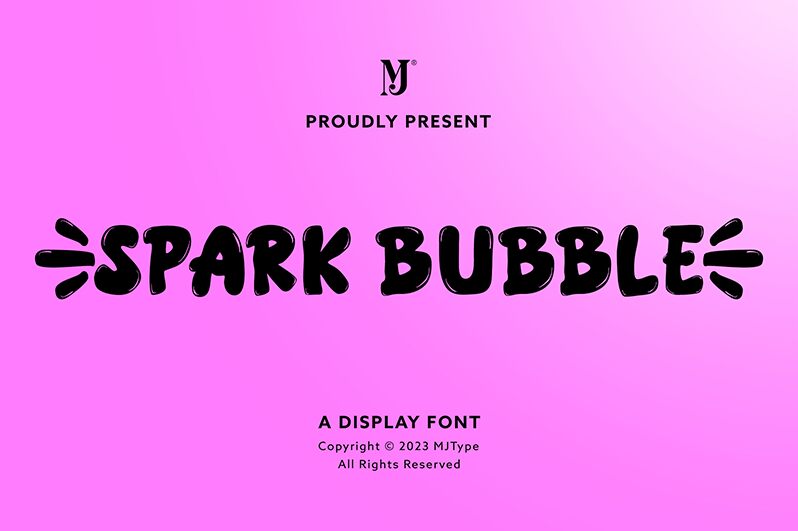
SPARK BUBBLE
SPARK BUBBLE, a whimsical creation by MJType, is a captivating display font that injects playfulness into any project. With its extra-bold weight, this cartoon-inspired typeface adds an exciting flair to children's books, animated films, and video games. Perfect for creating eye-catching logos or attention-grabbing headlines, SPARK BUBBLE brings characters to life with its bubbly personality. Whether designing posters for a kids' carnival or crafting invitations for a colorful birthday party, this font is the ideal choice to ignite joy and spark imagination in your creative endeavors.